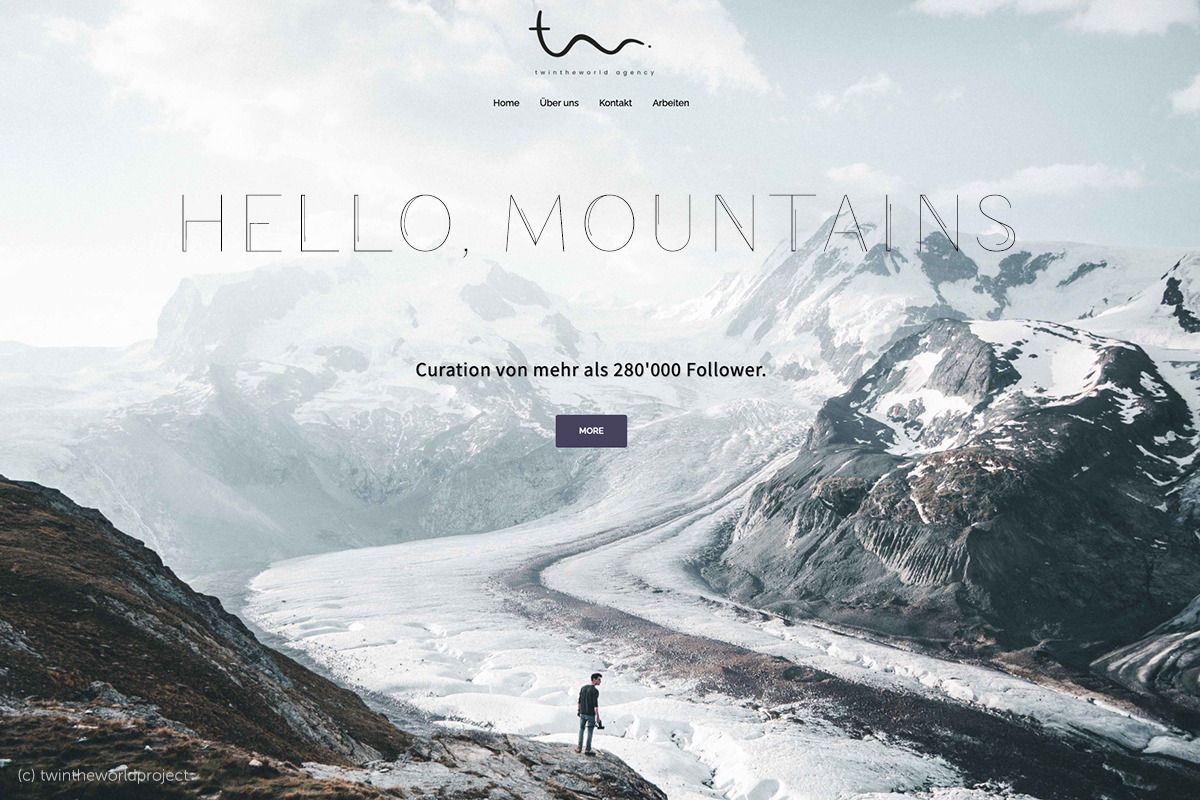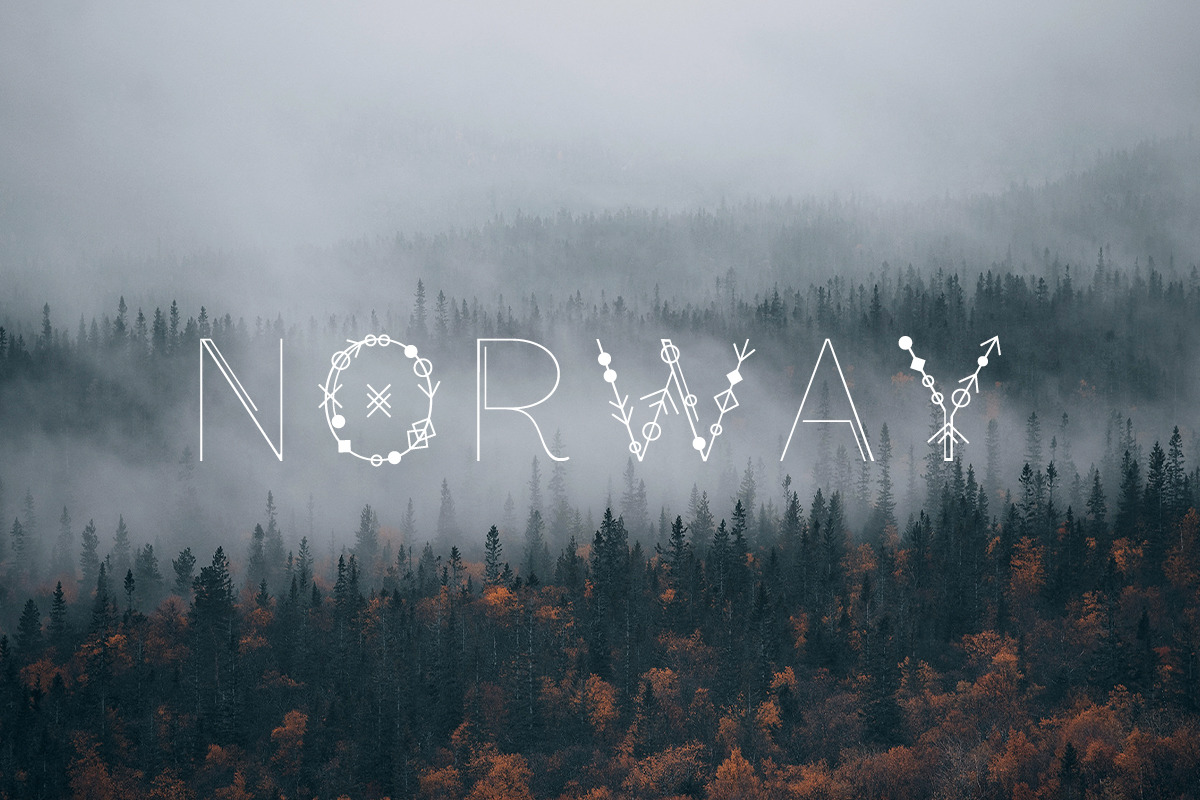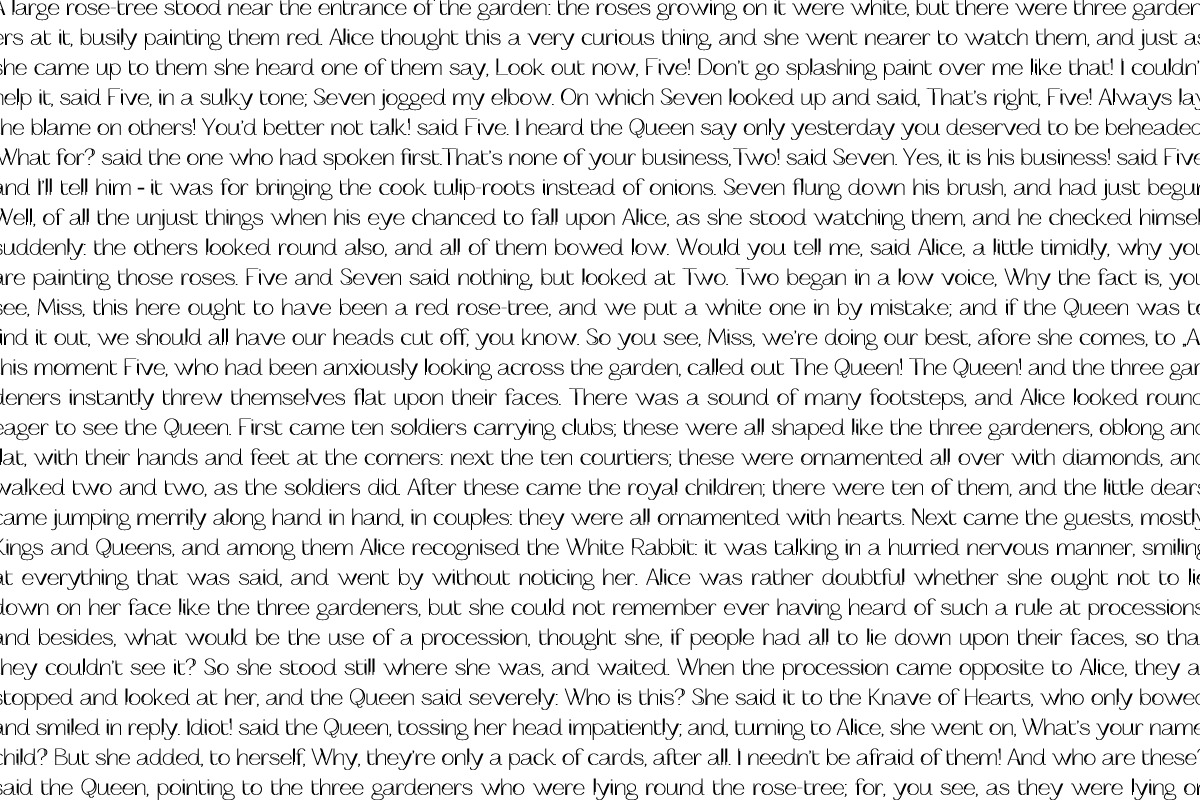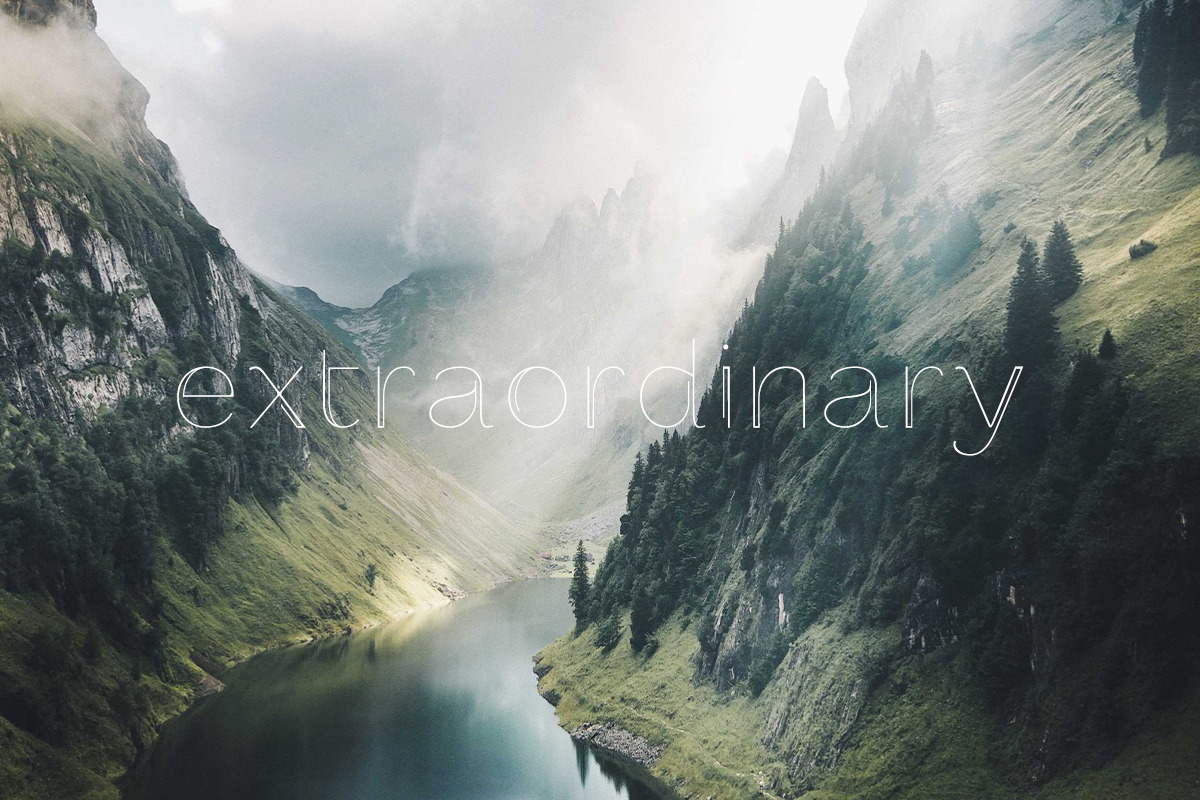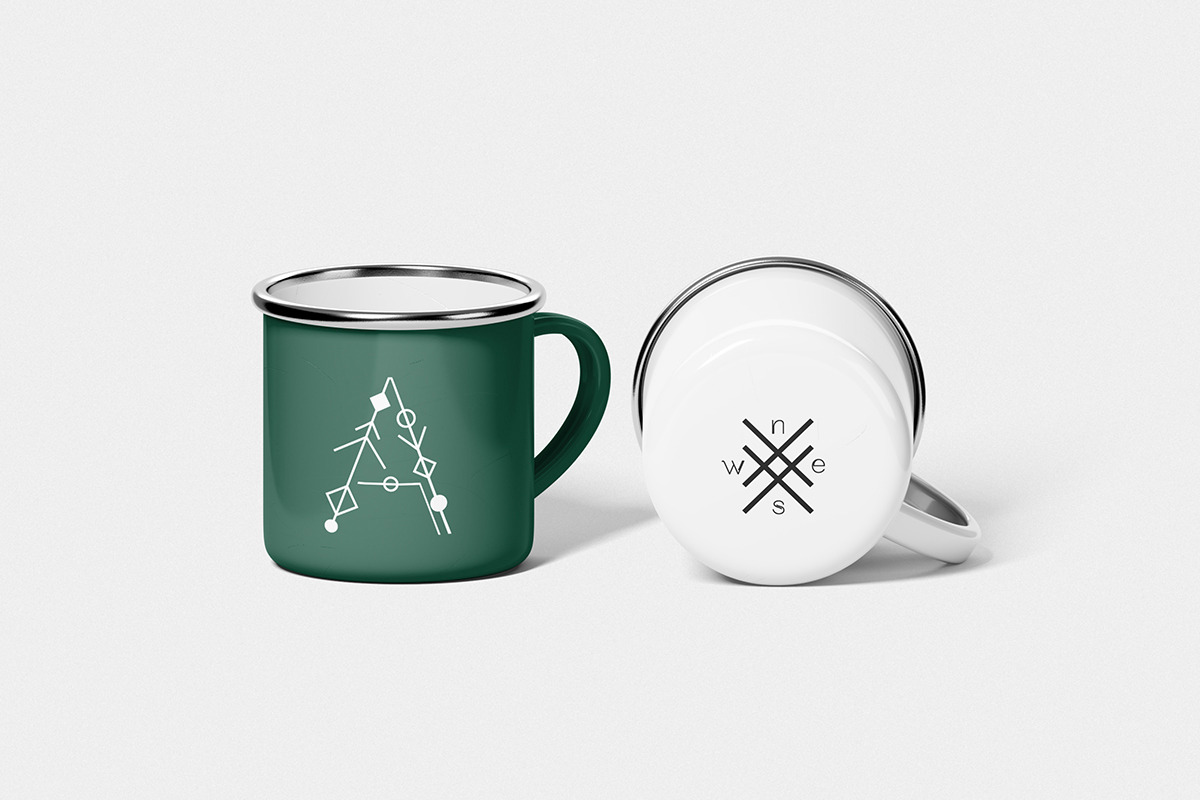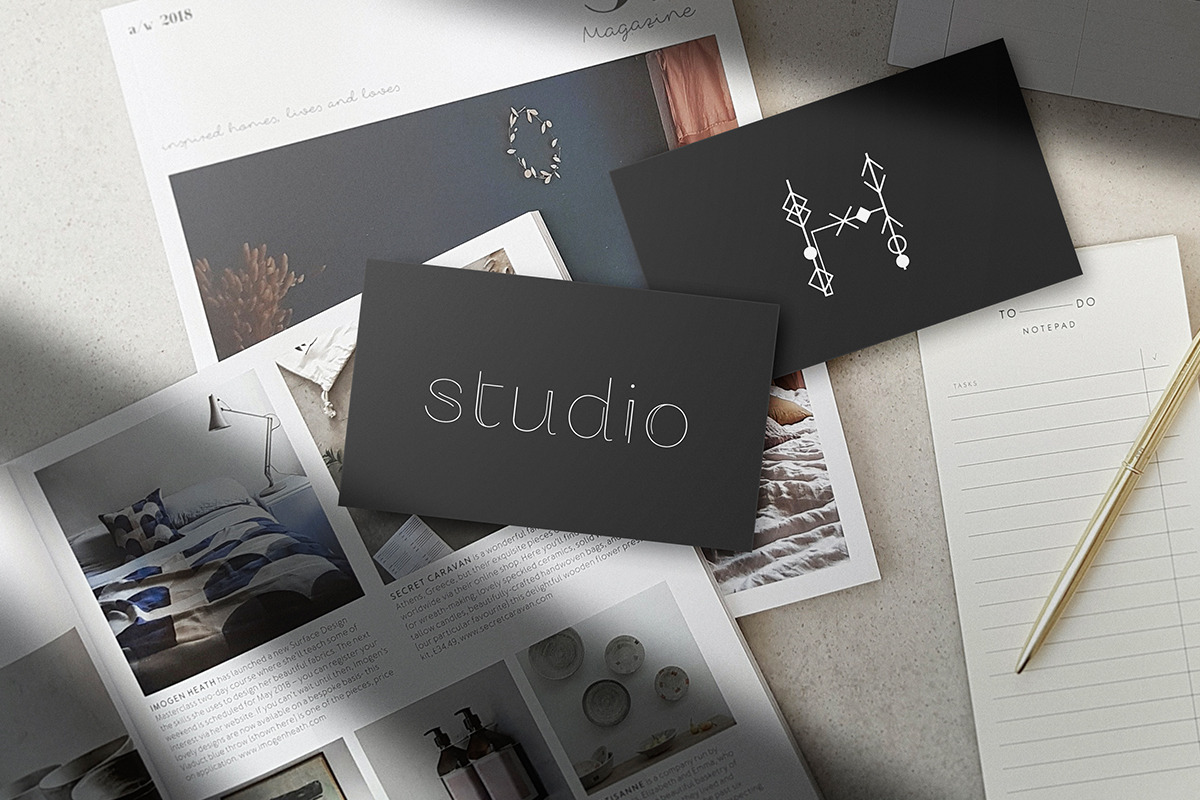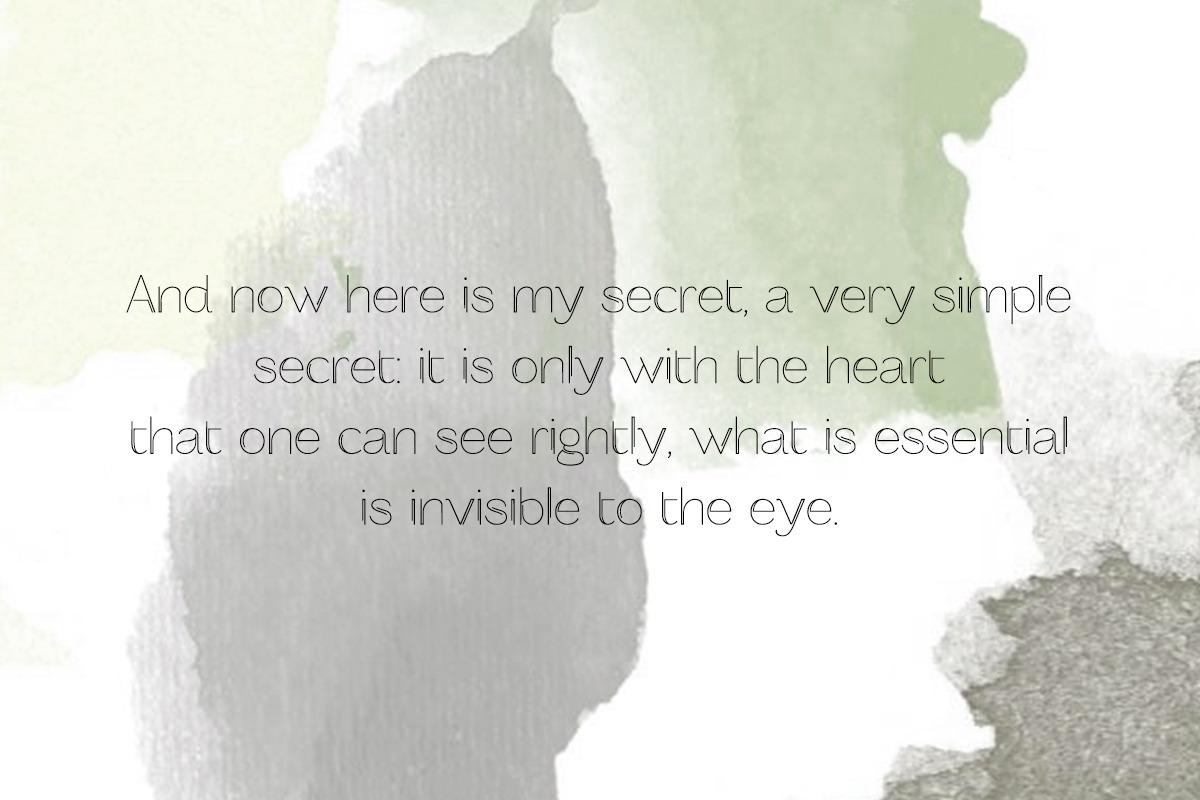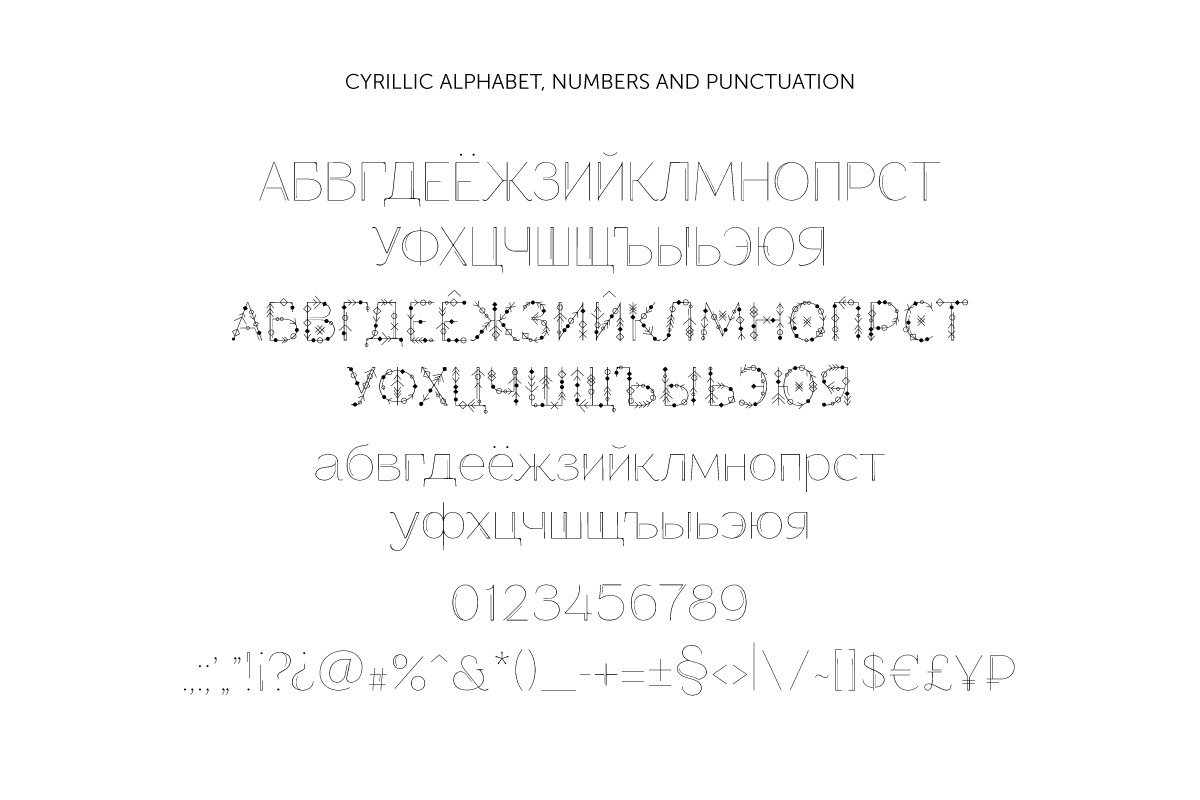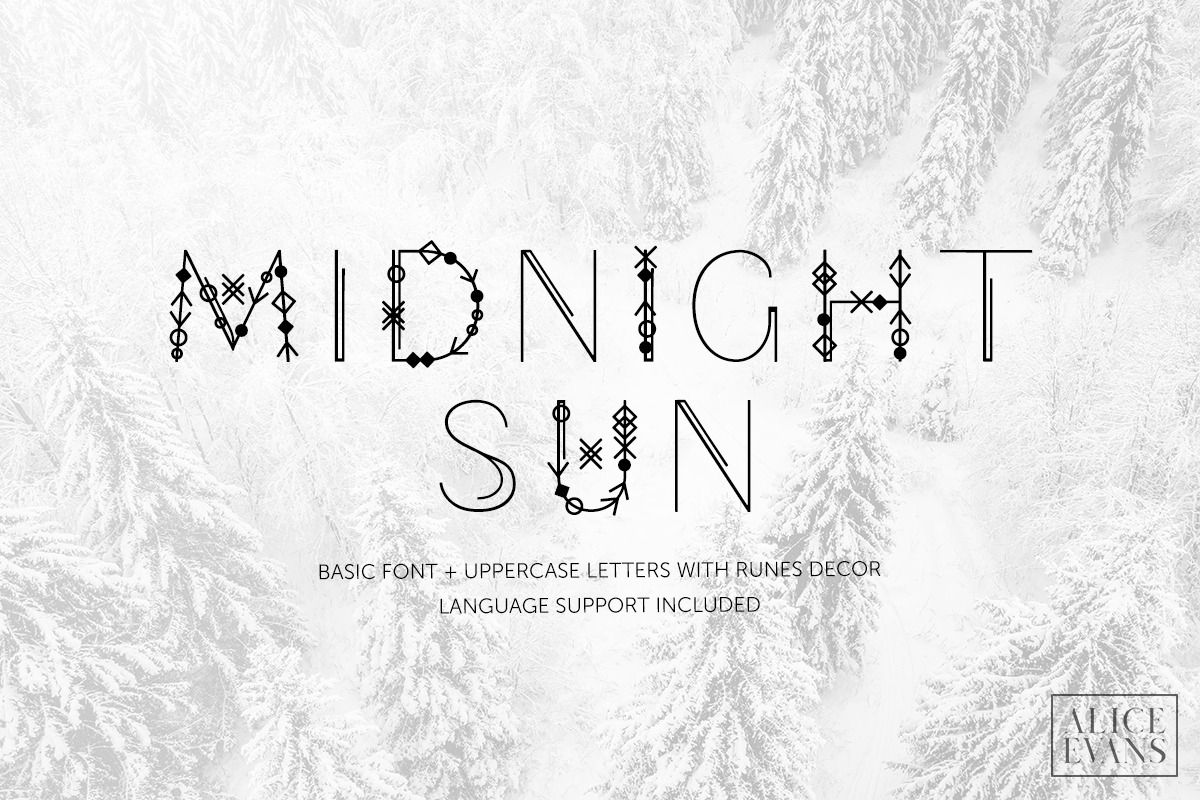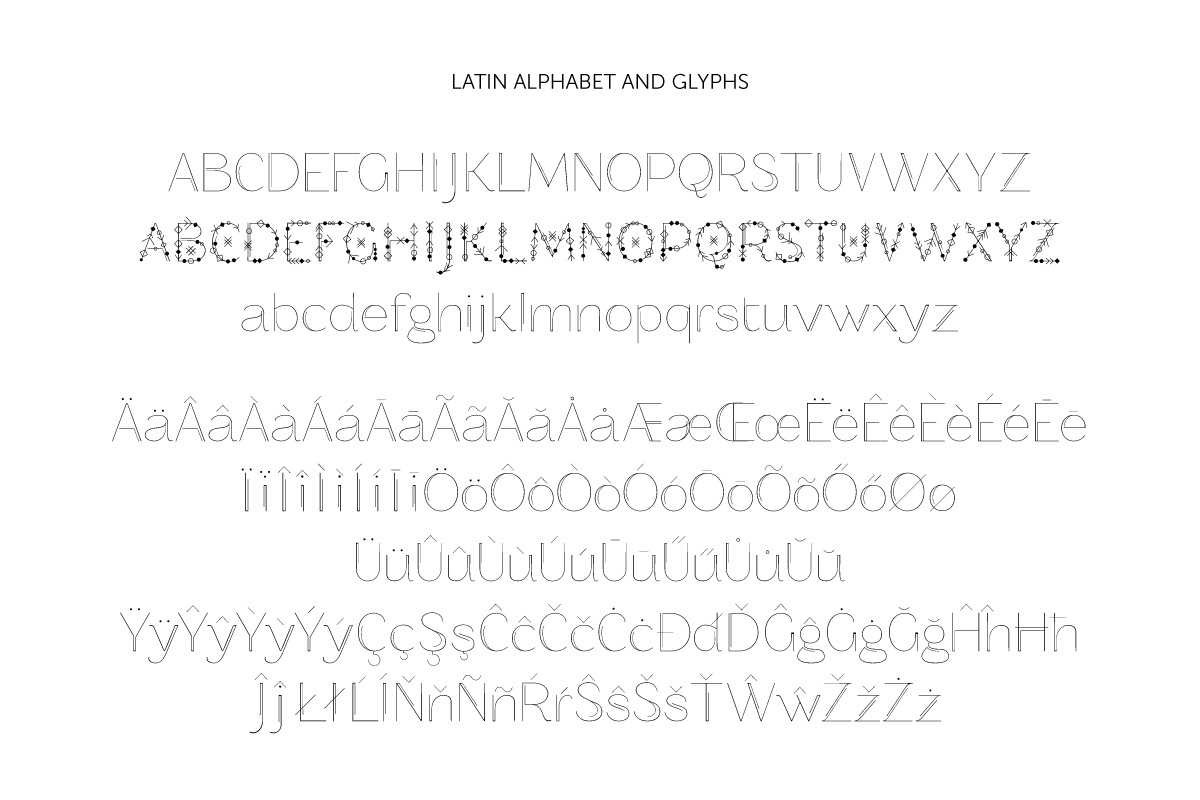
Midnight Sun Font
Hi and welcome to my Midnight Sun typeface project!
There are no words to explain how do I love scandinavian countries and a clean style. I present you a typeface called Midnight Sun, which includes a simple lined sans serif and a version of Uppercase letters decorated by geometric elements and runes. Please find some examples of using but you may use it everywhere. This font has a language support, some glyphs, numbers and punctuation of course.
You may use only one style or combine them together.
Midnight Sun Features:
- x 26 basic Latin Uppercase A-Z
- x 26 decorated Latin Uppercase A-Z
- x 26 basic Latin Lowercase a-z
- x 33 basic Cyrillic Uppercase А-Я
- x 33 decorated Cyrillic Uppercase А-Я
- x 33 basic Cyrillic Lowercase а-я
- 0-9 Numbers
- basic punctuation symbols